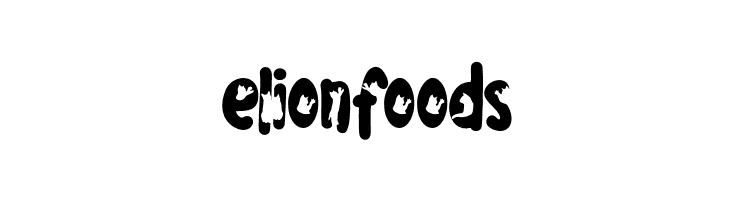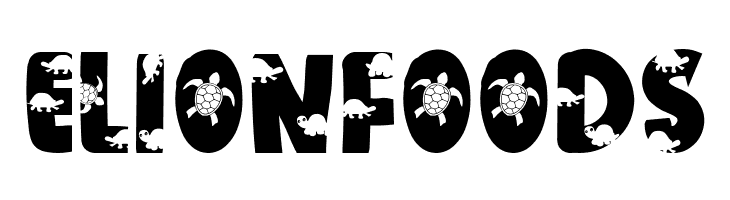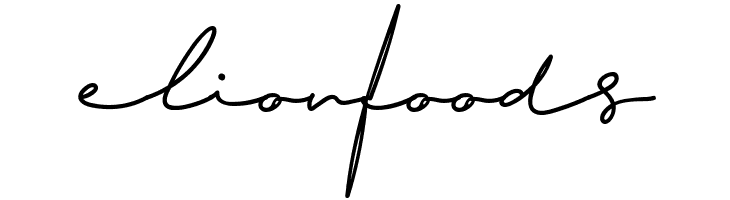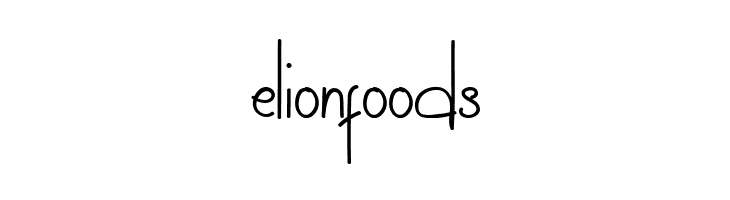
A whimsical, elegant handwritten font with flowing, interconnected letters.
( Fonts by Clarissa Adela Pranama )
A geometric, architectural font with bold outlines and dotted interiors.
( Fonts by share font )
A bold, decorative font with integrated turtle illustrations for a playful touch.
( Fonts by Luxima Creative Studio )
A bold, decorative font with vine patterns entwined around uppercase letters.
A fluid, cursive handwritten font with elegant, connected letters.
( Fonts by Vunira Design )
A bold, playful font with a distressed, grungy texture.
( Fonts by madeDeduk )
A bold, italic font with a textured, sketch-like appearance and strong decorative elements.
( Fonts by madeDeduk )
A vintage, decorative font with a distressed texture and unique serifs.